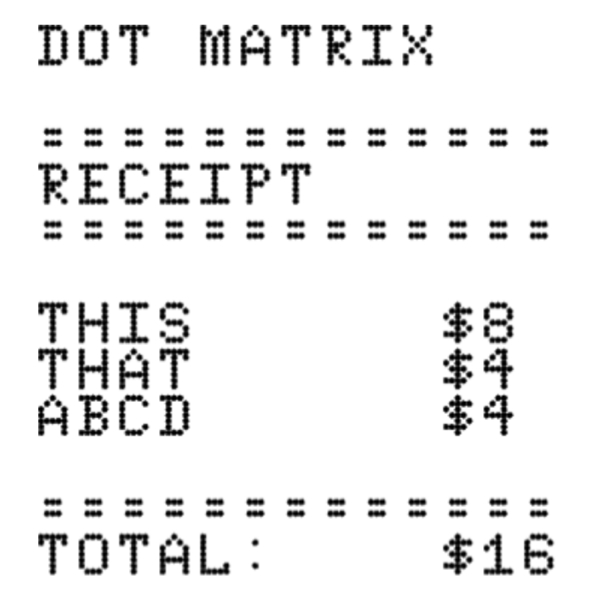
• all caps font
first font that isnt pixel
now its dot matrix which is basically the same but round
woo first sample i ever made (its a jpeg'd screenshot of fontstructs "view user input" lmao)